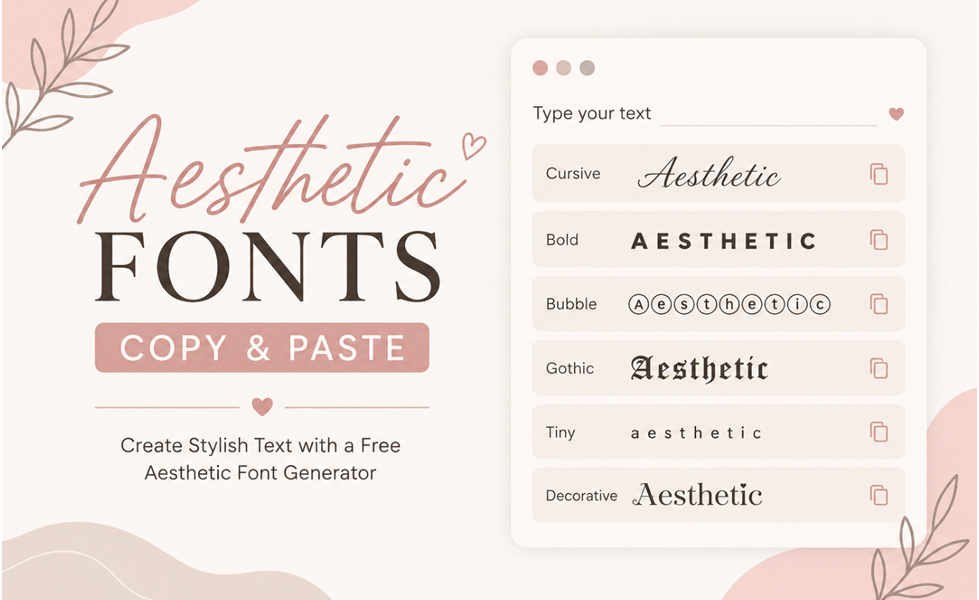
AESTHETIC FONTS
Aesthetic Fonts Copy and Paste: Create Stylish Text with a Free Aesthetic Font Generator
aesthetic font
Aesthetic fonts are one of the easiest ways to make your text look stylish, creative, and unique. Whether you want aesthetic fonts copy and paste for Instagram, create eye-catching social media posts, personalize gaming usernames, or design beautiful graphics in Canva, a free aesthetic font generator lets you transform ordinary text into decorative Unicode styles instantly.
The best part is that you don’t need to install any software. A free aesthetic generator lets you convert plain text into stylish Unicode text that you can copy and paste anywhere. From Instagram and TikTok to Discord, Facebook, WhatsApp, and Canva, aesthetic fonts work across many platforms.
In this guide, you’ll learn what aesthetic fonts are, how they work, where to use them, and how to choose the best font style for your projects.
What Are Aesthetic Fonts?
Aesthetic fonts are decorative text styles created using Unicode characters rather than traditional font files. Since these characters are supported by most modern devices and applications, you can copy and paste them without downloading anything.
Unlike regular fonts that require installation on your computer, aesthetic fonts are generated online and work instantly. Popular styles include cursive, bold, italic, bubble, gothic, tiny, double-struck, and monospace text.
People use aesthetic fonts to personalize their social media profiles, improve digital designs, and make their online content stand out.
Aesthetic fonts are especially popular because they help users express their personality online without installing additional software. Since they are generated using Unicode characters instead of downloadable font files, they remain compatible with most modern browsers and devices. This makes them ideal for social media, gaming profiles, online communities, digital branding, and creative content.
Why Are Aesthetic Fonts So Popular?
• Easy to copy and paste
• No installation required
• Works on most social media
• Makes profiles unique
• Improves branding
• Great for creators and gamers
An aesthetic font generator converts your standard text into different Unicode text styles.
Since the generated text uses Unicode characters, it works on most websites and mobile applications without requiring additional downloads.
Aesthetic Fonts Copy and Paste
One of the biggest advantages of an aesthetic font generator is the ability to instantly copy and paste stylish text.
• 𝒜𝑒𝓈𝓉𝒽𝑒𝓉𝒾𝒸
• 𝐀𝐞𝐬𝐭𝐡𝐞𝐭𝐢𝐜
• 𝔄𝔢𝔰𝔱𝔥𝔢𝔱𝔦𝔠
• 𝕬𝖊𝖘𝖙𝖍𝖊𝖙𝖎𝖈
• 🄰🄴🅂🅃🄷🄴🅃🄸🄲
Simply choose the style you like, copy it, and paste it into your social media profile, messages, captions, or documents.
Where Can You Use Aesthetic Fonts?
Aesthetic fonts are compatible with many popular platforms and creative tools.
Common uses include:
Using stylish fonts consistently can help create a memorable online identity.
Cute Aesthetic Fonts for Social Media
Cute aesthetic generator fonts are especially popular among influencers, students, creators, and small businesses. They give profiles a clean and creative appearance while making names and captions more noticeable.
Popular styles include:
• Bubble text
• Script fonts
• Small caps
• Wide text
• Tiny text
• Elegant cursive
• Decorative serif styles
These fonts work best for short phrases, usernames, titles, and profile descriptions rather than long paragraphs.
Best Aesthetic Canva Fonts
If you’re designing graphics in Canva, you can combine generated aesthetic text with Canva’s built-in fonts for professional-looking designs.
Some popular aesthetic Canva fonts include:
• Poppins
• Brittany Signature
• Playlist Script
• Dream Avenue
• League Spartan
• Gistesy
• Glacial Indifference
• Tan Pearl
• Cinzel
• Quicksand
These fonts are ideal for Instagram posts, Pinterest pins, business branding, invitations, planners, and presentations.
Conclusion
Aesthetic fonts make it easy to transform plain text into eye-catching styles for social media, gaming, digital branding, and creative projects. Whether you need cute aesthetic fonts, aesthetic fonts copy and paste, or a reliable aesthetic generator, using Unicode-based text is a quick and effective solution. Try different styles, experiment with your designs, and choose fonts that best match your personality or brand.